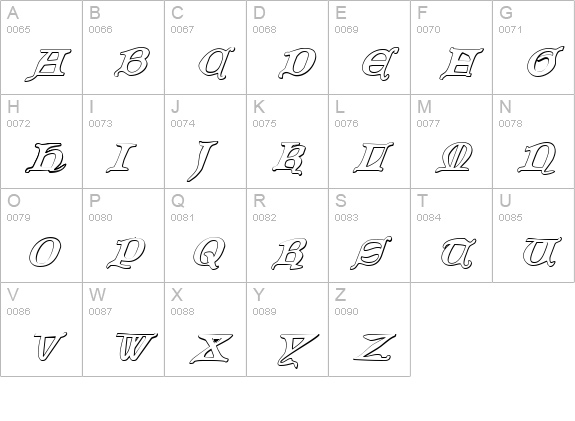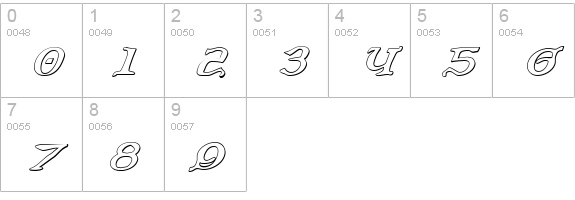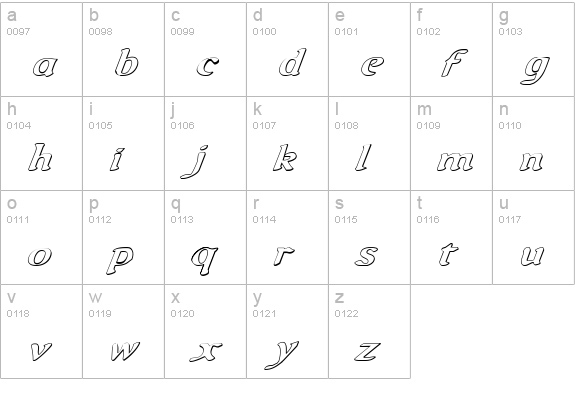
Queen & Country 3D Italic Font Details
Queen & Country 3D Italic is a distinctive, italic variant in the Queen typeface family \xE2\x80\x94 well suited to design and typography projects.
Queen & Country 3D Italic font is a stunning display typeface that exudes elegance and sophistication. Its intricate 3D effect adds depth and dimension to any design project, making it stand out from the rest. The italic style brings a sense of dynamism and flair, perfect for adding a touch of luxury to your creations. The regal curves and sharp angles of Queen & Country 3D Italic font make it a versatile choice for a wide range of applications, from branding to editorial design. Whether you're working on a poster, logo, or website, this font will elevate your work to a whole new level. And the best part? Queen & Country 3D Italic font is completely free to download at FontsMarket.com. Get your hands on this exquisite font today and take your designs to the next level with its royal charm and sophistication.